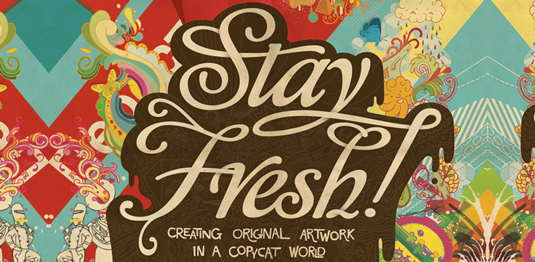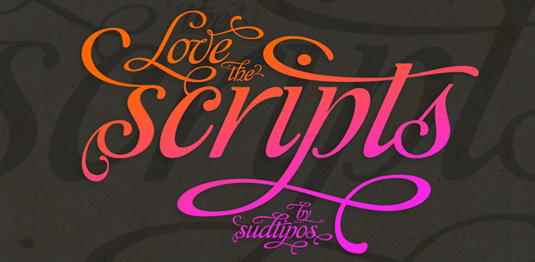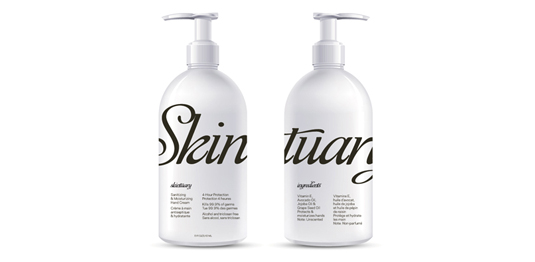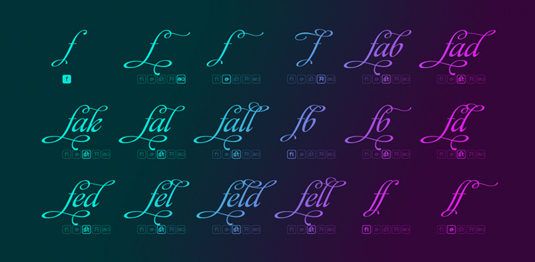
Font of the day: Affair
Every day we showcase the best fonts on the web. Today it's Affair by Sudtipos.
Affair from Sudtipos
Looking for a typeface to accompany a Valentine's Day design? Then look no further than Affair, a calligraphic typeface by co-founder of Sudtipos studio Alejandro Paul. "Affair is simply an elegant yet readable display typeface," he comments. "Dress it up with alternates, and it becomes irresistibly attractive, in styles from glamourous to over-the-top."